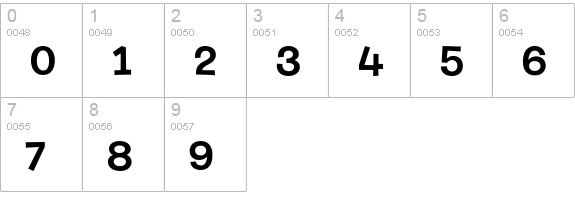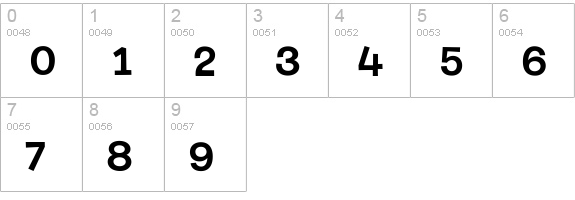
ShagExpert-Lounge Font Details
Introducing ShagExpert-Lounge, a breathtaking font that effortlessly embodies sophistication and elegance. With its smooth curves and refined lines, this font is perfect for adding a touch of class to any design project. Whether you're creating invitations, logos, or branding materials, ShagExpert-Lounge will elevate your work to the next level. What sets ShagExpert-Lounge apart is not just its stunning design, but also its versatility. This font seamlessly adapts to various styles and themes, making it a go-to choice for designers seeking a timeless and polished look. Its clean and readable characters make it ideal for both digital and print media, ensuring that your message is conveyed with utmost clarity and professionalism. But what truly sets ShagExpert-Lounge apart is that it is available for free. Yes, you read that right! You can freely download this font at FontsMarket.com, a treasure trove of premium-quality fonts. Now, you can experience the sheer luxury and beauty of ShagExpert-Lounge without breaking the bank. Download ShagExpert-Lounge today and unlock a world of limitless creativity. Whether you're a professional designer or an aspiring artist, this font will become an invaluable asset in your collection. So why wait? Embrace the elegance and sophistication that ShagExpert-Lounge effortlessly exudes and take your design projects to new heights. Get your hands on this free font at FontsMarket.com and let your creativity soar.